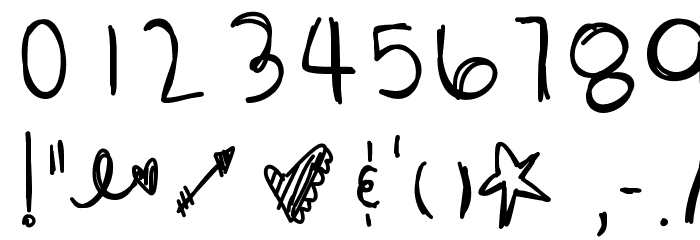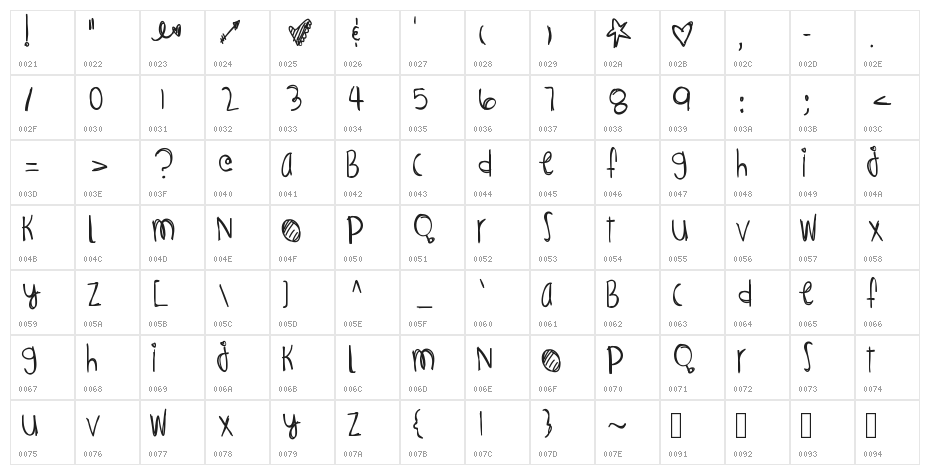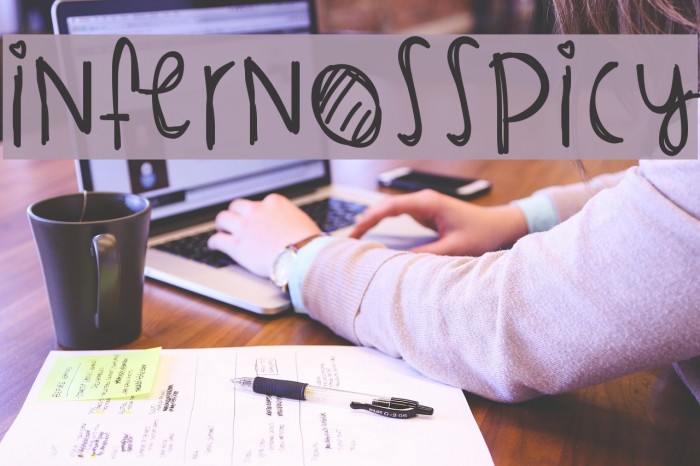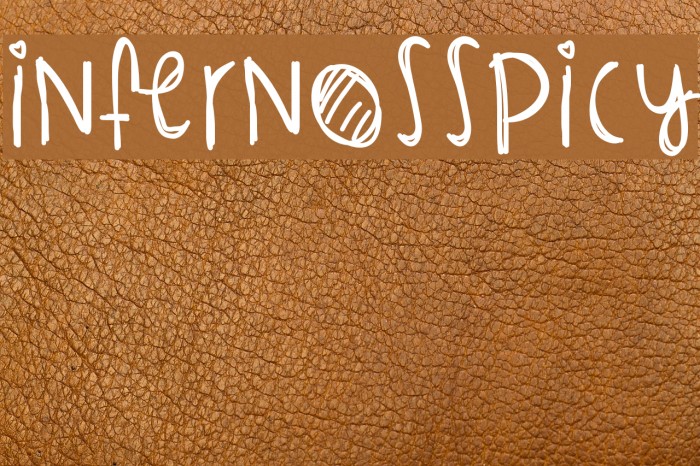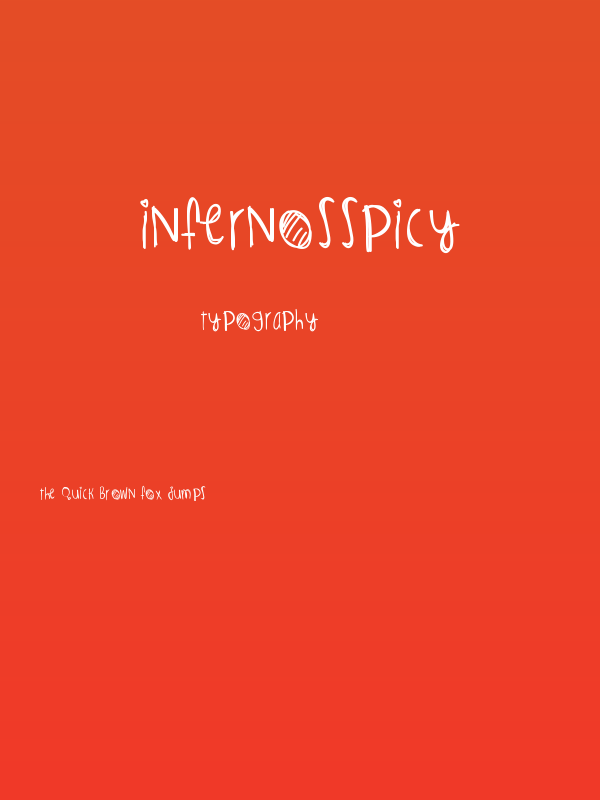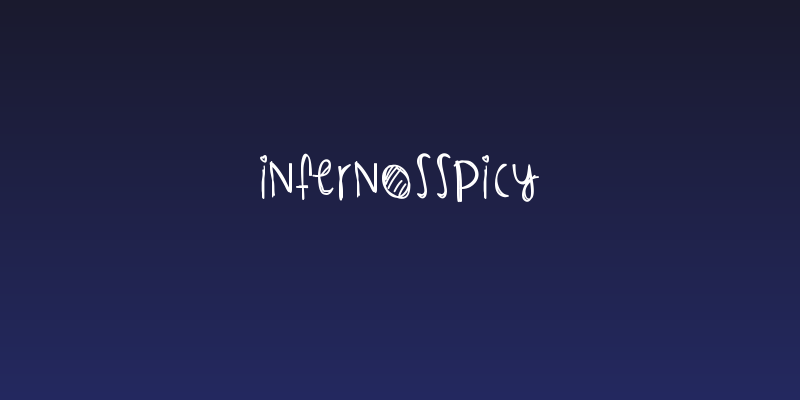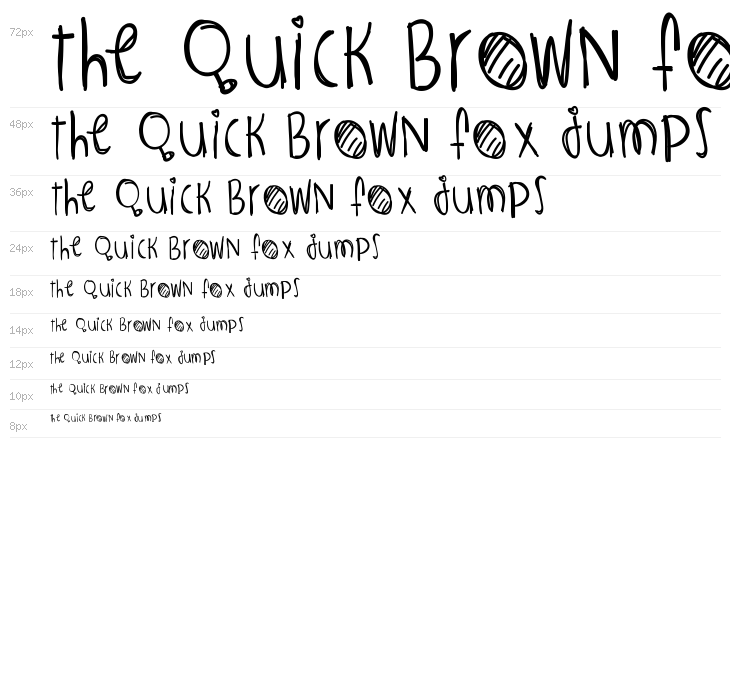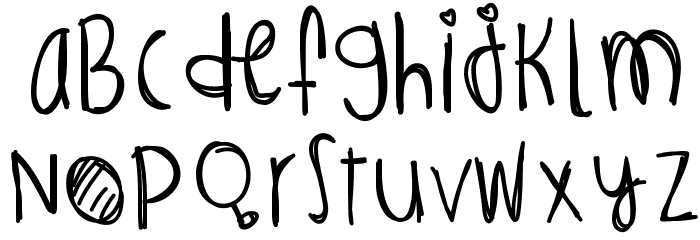
InfernosSpicy Font
InfernosSpicy Description
This playful and whimsical font features a handwritten style with a quirky and energetic flair. The characters are uneven and slightly irregular, adding a sense of spontaneity and fun. Each letter has a unique personality, with some incorporating small decorative elements like hearts or swirls. The numbers and special characters maintain this lively aesthetic, making the font suitable for creative and informal projects. The overall look is casual and approachable, perfect for capturing attention with its distinctive charm.
| Proposed Projects | Ideal for children's books, greeting cards, playful branding, and social media graphics. |